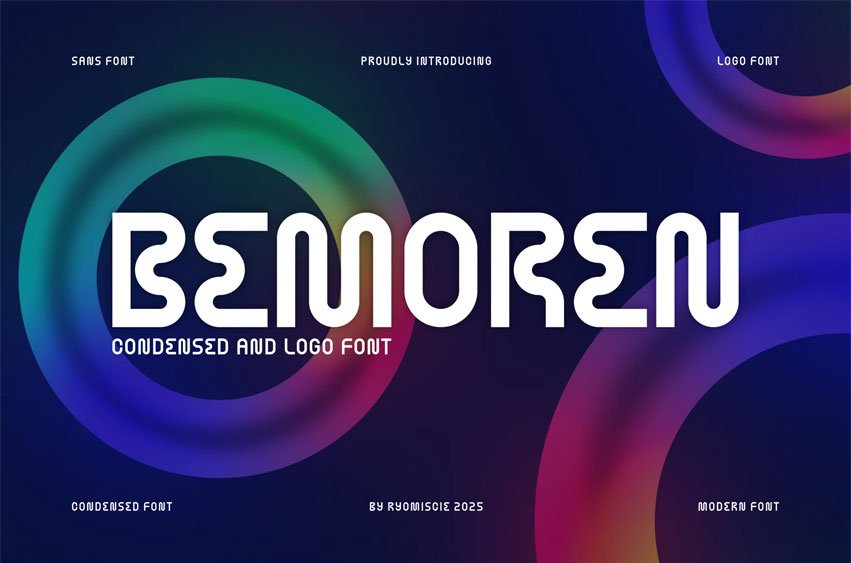
Bemoren Font Tall & Modern Font is a bold and authentic display font. The font is suitable for any branding project like logo, printing, esport, and many more. outstanding in a wide range of contexts.